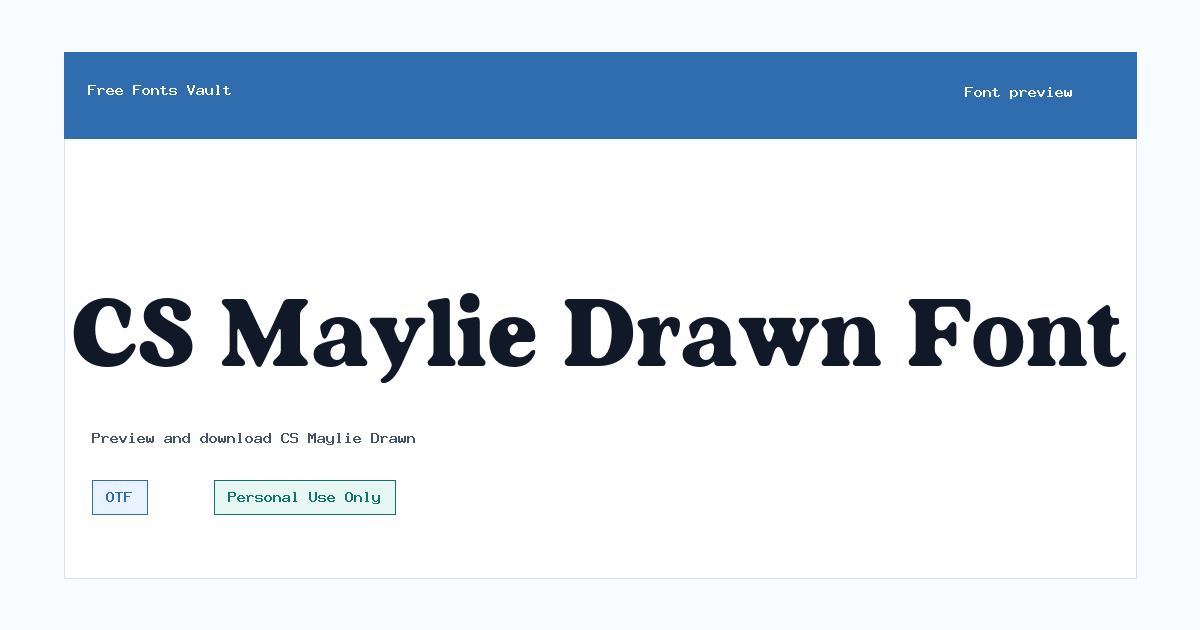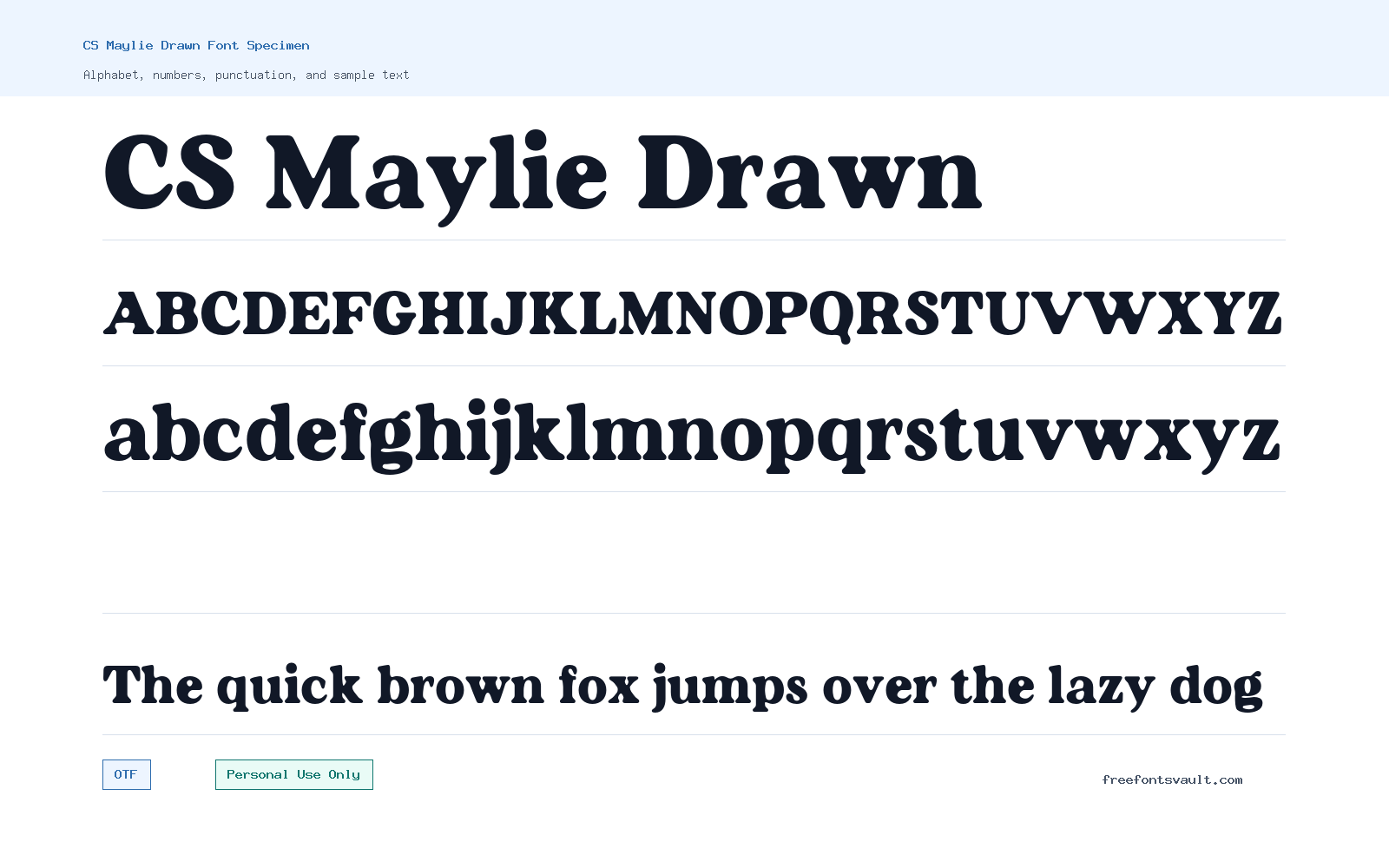
CS Maylie Drawn
CS Maylie Drawn is a serif font with a hand-drawn finish, made for visitors who want a softer, less polished serif look for personal design work.
About CS Maylie Drawn
CS Maylie Drawn keeps the structure of a serif typeface while adding a sketched surface that gives the letters a handmade feel. The drawn treatment is the main reason to use it: it can make short words, titles, labels, and decorative text feel more informal than a clean editorial serif. Because the available file is a regular 400-weight OTF, it is best treated as a single-style display font rather than a full text family with bold, italic, or multiple weights.
Use the preview box before downloading to test the exact words you plan to design with. Drawn serif fonts can look charming at headline sizes but may lose clarity when used too small, especially in long paragraphs or tight mobile layouts. Try it with names, short quotes, packaging-style labels, greeting-card lines, poster headings, or social graphics. If your layout needs body copy, pair CS Maylie Drawn with a simpler sans serif or a clean serif so the textured letters stay readable and do not compete with other decorative elements.
- Hand-drawn serif styling with a textured, informal letter finish
- Personal-use headings, invitations, labels, quote graphics, and poster text
- Short decorative text where a handmade serif look is more useful than a polished text face
Is CS Maylie Drawn good for body text?
It is better for short display text. The drawn texture can become harder to read in long paragraphs or at small sizes.